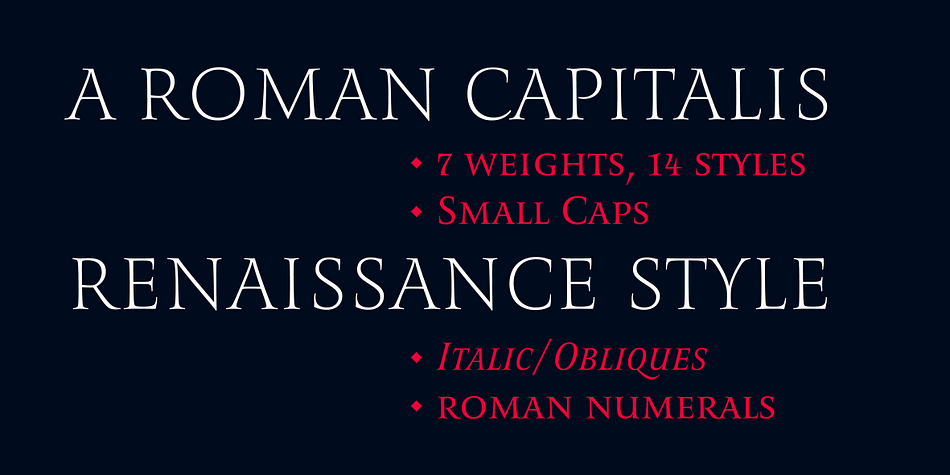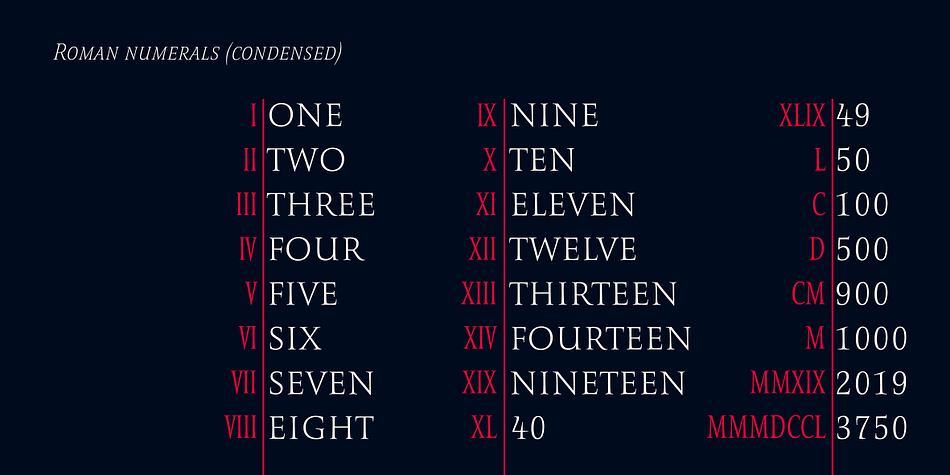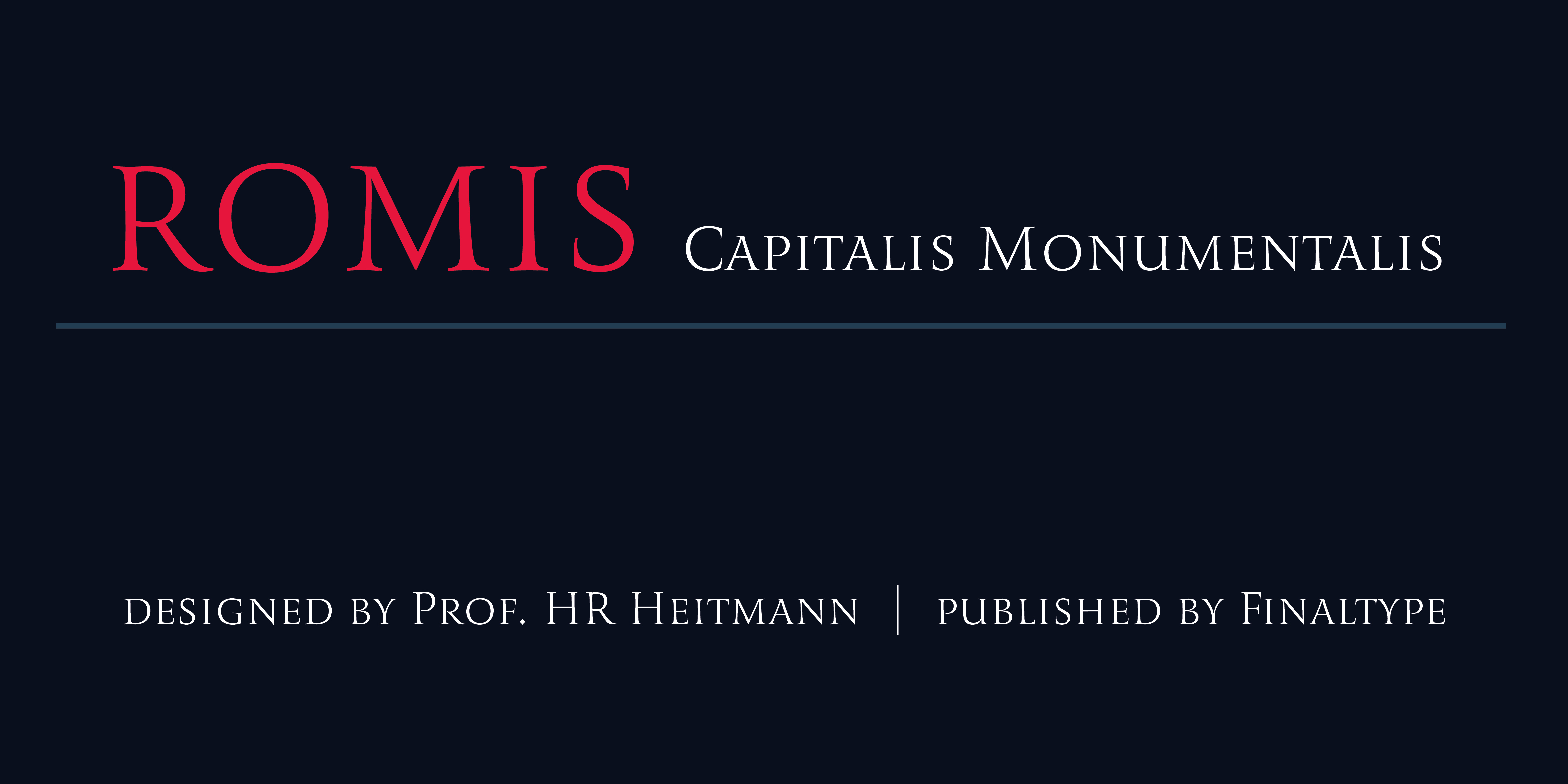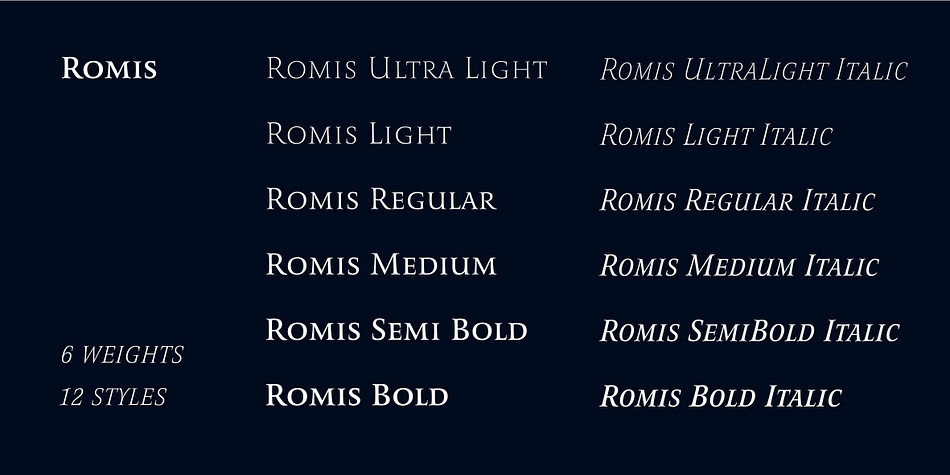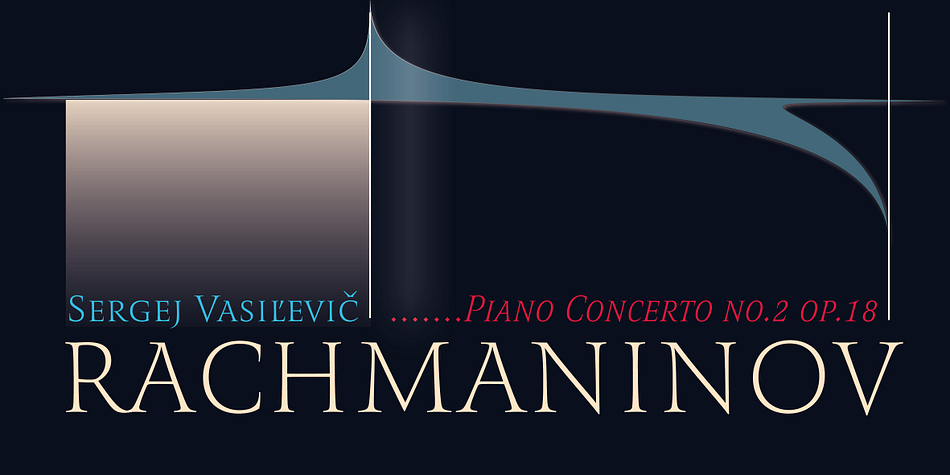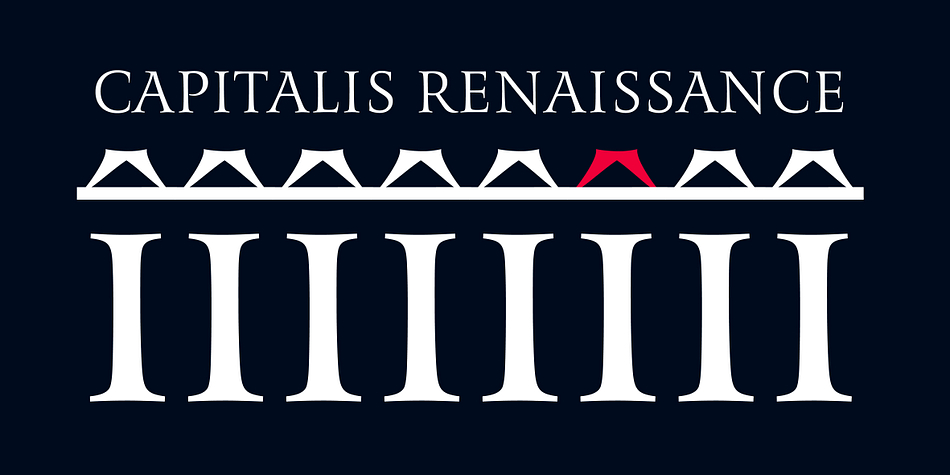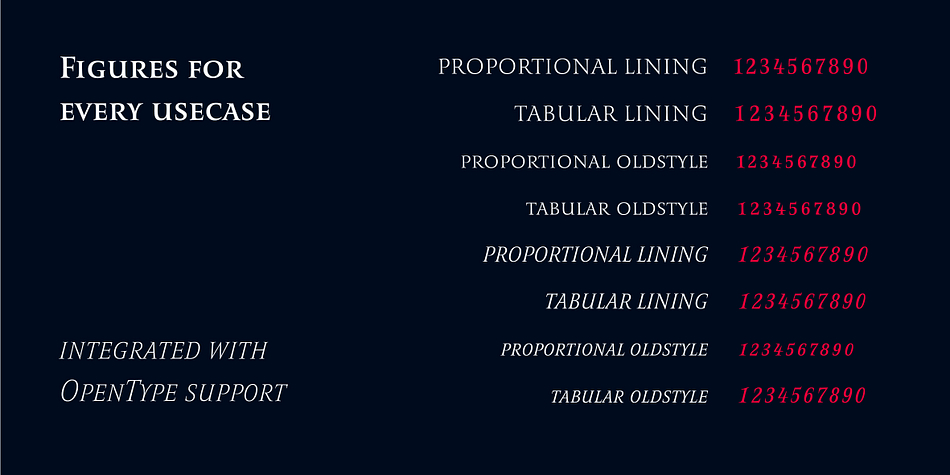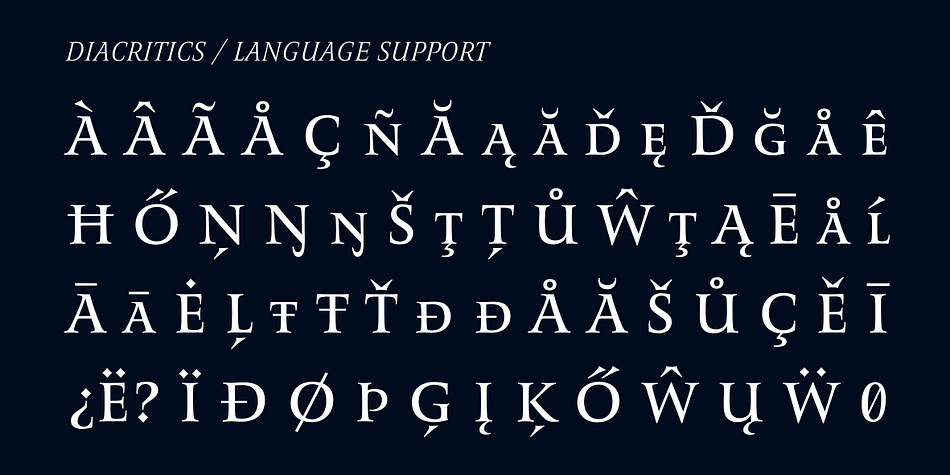
Romis
Designed by Hans Heitmann, Romis is a serif font family. This typeface has twelve styles and was published by Finaltype.
A roman capital typeface, renaissance style. Individually shaped serifs and the absence of any geometric lines signify our humanist interpretation of the Capitalis Monumentalis. »Romis« features true small caps instead of a lowercase alphabet. It comes in six weights and adds a narrow oblique to every weight for maximum flexibility.
Foundry Finaltype
Designer Hans Heitmann